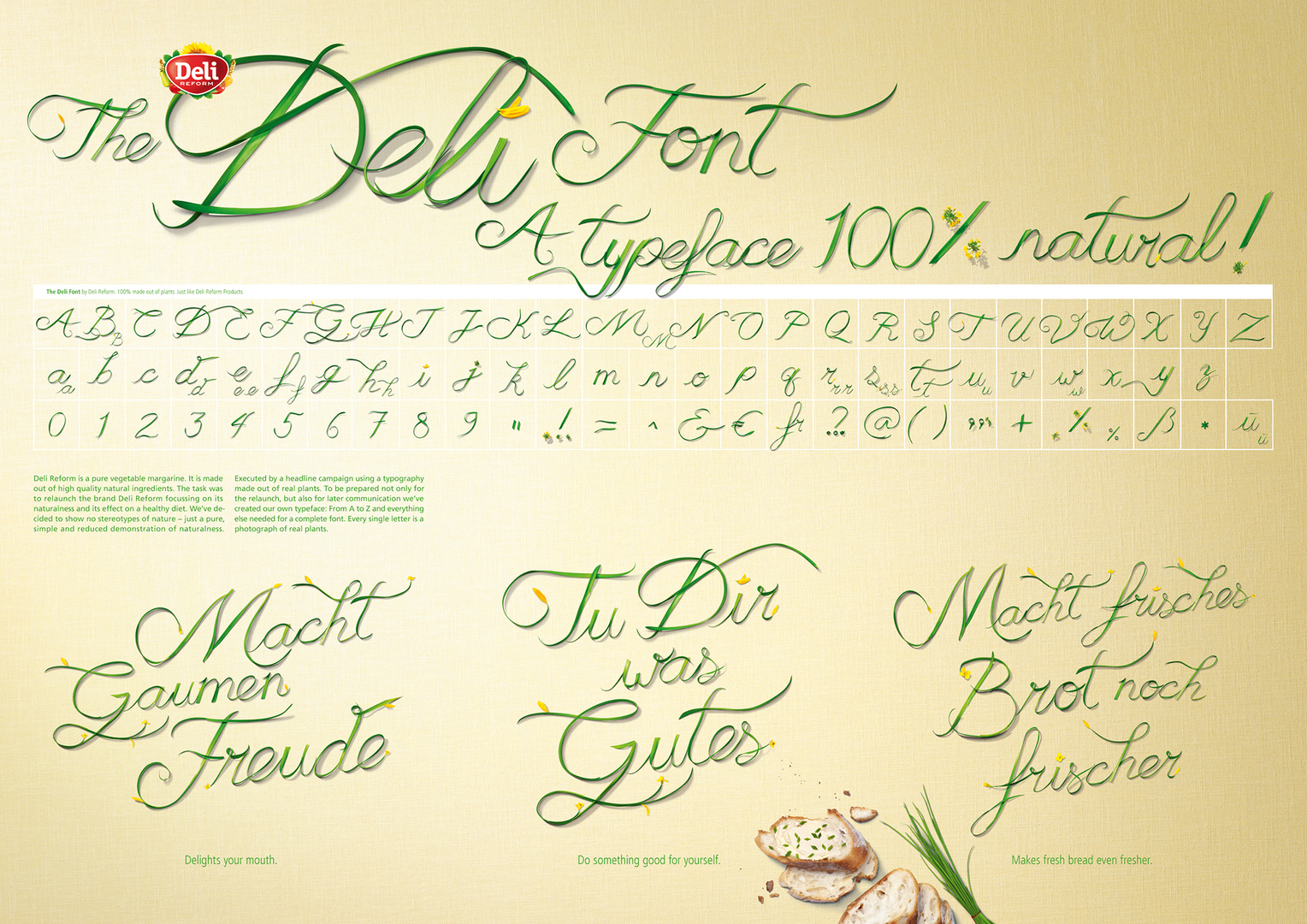
The Deli Font
The relaunch of the Deli Reform brand focuses on the high quality of this vegetable margarine, its natural ingredients and its positive effect on a healthy diet. The Deli Font typeface, which was specially designed for the headline campaign, boldly refrains from showing stereotypes of nature. The demonstration of a pure, simple and reduced kind of naturalness was realised by using typography based on real plants. For later communications, a typeface was created that offers everything else needed for a complete font.